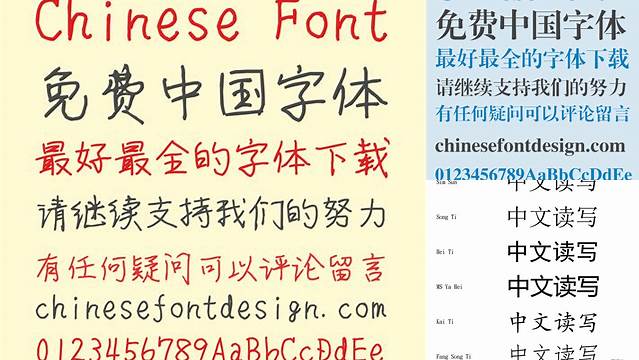
Chinese Fonts On Windows 11: A Complete Guide
Hey guys! Ever wondered how to get those beautiful Chinese characters displaying correctly on your Windows 11? Or maybe you're diving into learning Mandarin and need the right fonts to practice? Well, you've come to the right place! This guide is all about navigating the world of Chinese supplemental fonts on Windows 11. We'll cover everything from installation to troubleshooting, making sure your experience with Chinese text is smooth and enjoyable. Let's get started!
1. Understanding Chinese Font Support in Windows 11
So, first things first, let's talk about how Windows 11 handles Chinese fonts. Windows 11 actually comes with built-in support for a variety of languages, including Chinese. This means that a basic set of Chinese fonts is already included in your system. However, these default fonts might not always be enough, especially if you're working with specific styles or need a broader range of characters. This is where supplemental fonts come in. Think of it like this: the default fonts are like your everyday wardrobe, while supplemental fonts are those special outfits you pull out for specific occasions. For example, you might need a particular font for a calligraphy project or a different one for reading historical texts. Chinese supplemental fonts enhance your ability to interact with Chinese content, ensuring readability and aesthetic appeal. Windows 11's robust support for international languages makes it a great platform for anyone working with multilingual content. Understanding this foundation is key to ensuring your system can properly display Chinese characters, whether you're browsing websites, reading documents, or creating your own content. Knowing the capabilities of your operating system allows you to better manage your font options and optimize your user experience when dealing with Chinese text.
4. Recommended Chinese Fonts for Windows 11
Alright, let's talk about some specific Chinese fonts that work really well on Windows 11. If you're looking for a classic and elegant option, SimSun is a great choice. It's a widely used font that's known for its readability, especially in smaller sizes. Another popular option is Microsoft YaHei, which is a modern sans-serif font that looks clean and crisp on screen. For a more traditional feel, you might want to check out SimHei, which is a bold and impactful font often used in headlines and titles. If you're working on documents that require Traditional Chinese characters, MingLiU and PMingLiU are excellent choices. These fonts are designed specifically for Traditional Chinese and offer great clarity. When choosing a font, consider the purpose and context of your project. A font that works well for a formal document might not be the best choice for a casual blog post. Experimenting with different fonts is a great way to find the perfect match for your needs. Remember, the right font can significantly enhance the readability and aesthetic appeal of your text. Think about the overall tone and style you want to convey, and choose a font that aligns with that vision. The font you select plays a crucial role in how your content is perceived.
7. Troubleshooting Font Display Issues
Sometimes, even with the right fonts installed, you might run into issues with font display. Characters might look garbled, or certain fonts might not show up at all. Don't panic! There are a few things you can try to troubleshoot these problems. First, make sure you've restarted your application or even your computer after installing new fonts. This can often resolve minor glitches. If that doesn't work, try clearing your font cache. Windows stores a cache of font information to speed up performance, but sometimes this cache can become corrupted. You can usually clear the font cache by deleting the contents of the %WinDir%\System32\FNTCACHE.DAT file (you might need administrator privileges to do this). Another common issue is font conflicts. If you have multiple versions of the same font installed, they can sometimes interfere with each other. Try uninstalling any duplicate fonts to see if that fixes the problem. If you're still having trouble, check the font settings in your application. Some applications allow you to specify which fonts to use for different types of text. Ensuring that the correct Chinese font is selected can resolve display issues. Troubleshooting font problems can sometimes feel like detective work, but by systematically trying different solutions, you can usually get things working smoothly. Remember to document the steps you've taken so you can refer back to them if the issue recurs.
8. Updating Your Graphics Drivers
Okay, this might seem a little out there, but sometimes outdated graphics drivers can actually cause font display issues. Graphics drivers are the software that allows your computer to communicate with your graphics card, and they play a role in rendering text on your screen. If your drivers are old or corrupted, they might not be displaying fonts correctly. Updating your graphics drivers is usually a pretty straightforward process. You can either download the latest drivers from the manufacturer's website (Nvidia, AMD, or Intel) or use the Windows Device Manager. To access Device Manager, right-click on the Start button and select "Device Manager." Then, expand the "Display adapters" section, right-click on your graphics card, and select "Update driver." Windows will then search for and install the latest drivers. Keeping your graphics drivers up to date is not only important for font display but also for overall system performance and stability. It's a good practice to check for driver updates regularly, especially if you're experiencing graphical glitches or other display-related issues. Don't underestimate the impact of your graphics drivers on the visual aspects of your computing experience. Outdated drivers can lead to a variety of problems, including font rendering issues, so keeping them current is a smart move.
9. Adjusting ClearType Settings
Let's talk about making those Chinese fonts look extra crisp and clear on your screen. Windows has a feature called ClearType that helps smooth out the edges of fonts, making them easier to read. Sometimes, the default ClearType settings might not be optimal for Chinese characters, so it's worth tweaking them. To adjust ClearType settings, just search for "ClearType" in the Windows search bar and select "Adjust ClearType text." This will launch a wizard that walks you through the process of optimizing ClearType for your display. The wizard will show you a series of text samples and ask you to choose the one that looks best to you. This helps Windows fine-tune the ClearType settings to match your monitor and your personal preferences. Adjusting ClearType can make a significant difference in the readability of fonts, especially on LCD screens. It's a simple adjustment that can have a big impact on your viewing experience. Experimenting with different ClearType settings can help you find the perfect balance between sharpness and smoothness for your fonts. Remember, ClearType is designed to enhance the appearance of text, so taking the time to configure it properly is well worth the effort.
10. Using Font Management Software
If you're working with a large collection of Chinese fonts, things can get a little messy. That's where font management software comes in handy. These tools help you organize, activate, and deactivate fonts, making it easier to find the right font for your project. There are several font management programs available, both free and paid. Some popular options include FontBase, NexusFont, and FontExplorer X Pro. These programs allow you to create font sets, preview fonts, and even identify and resolve font conflicts. Using font management software can save you a lot of time and frustration, especially if you're a designer or someone who works with fonts regularly. It's like having a personal librarian for your font collection. Font management software not only helps you stay organized but also improves system performance by preventing unnecessary fonts from being loaded. By only activating the fonts you need, you can free up system resources and make your computer run more efficiently. Investing in a good font management tool can be a game-changer for anyone who takes typography seriously.
11. Chinese Font Licensing: What You Need to Know
Okay, let's talk about something that's not super exciting but really important: Chinese font licensing. Just like any other creative work, fonts are protected by copyright, and it's crucial to understand the licensing terms before you use them. Different fonts have different licenses, and these licenses dictate how you can use the font. Some fonts are free for personal and commercial use, while others might only be free for personal use or require a license fee for commercial projects. It's essential to read the license agreement carefully before using a font in a project that you plan to distribute or sell. Using a font without the proper license can lead to legal trouble, so it's not something to take lightly. When downloading fonts from reputable sources, the licensing information is usually clearly stated. If you're unsure about the licensing terms, it's always best to err on the side of caution and contact the font designer or foundry for clarification. Understanding font licensing is a fundamental aspect of responsible design and creative practice. Respecting the rights of font creators ensures the continued availability of high-quality fonts for everyone. Remember, ignorance of the law is no excuse, so take the time to educate yourself about font licensing.
12. Understanding Simplified vs. Traditional Chinese Fonts
When dealing with Chinese fonts, it's important to understand the difference between Simplified and Traditional Chinese characters. Simplified Chinese is the standard script used in mainland China, while Traditional Chinese is used in Hong Kong, Taiwan, and Macau. The main difference lies in the complexity of the characters. Simplified characters have been streamlined and have fewer strokes than their Traditional counterparts. This means that a font designed for Simplified Chinese might not display Traditional characters correctly, and vice versa. When choosing a font, it's crucial to select one that matches the script you're working with. If you're writing for a mainland Chinese audience, you'll want to use a Simplified Chinese font. If you're writing for a Taiwanese audience, you'll need a Traditional Chinese font. Some fonts support both Simplified and Traditional characters, but it's always best to double-check to ensure compatibility. Using the correct script not only ensures readability but also demonstrates respect for the cultural nuances of the language. Understanding the nuances between Simplified and Traditional Chinese is essential for effective communication. Paying attention to these details can significantly enhance the clarity and impact of your message.
13. Using Chinese Fonts in Microsoft Office
Alright, let's talk about using those Chinese fonts in Microsoft Office applications like Word, Excel, and PowerPoint. Getting your fonts to display correctly in Office is usually pretty straightforward, but there are a few things to keep in mind. First, make sure you've installed the Chinese fonts on your system, as we discussed earlier. Then, open your Office application and select the Chinese font from the font dropdown menu. If you don't see the font you're looking for, try restarting the application. Sometimes, Office needs a little nudge to recognize newly installed fonts. When typing in Chinese, make sure you've enabled the Chinese input method, as we covered earlier. You can switch between input methods using the language bar in the taskbar. If you're working on a document that contains both English and Chinese text, it's a good idea to set the language for each section of text. This ensures that the correct fonts and formatting are applied. You can do this by selecting the text and then going to the "Review" tab and clicking "Language" > "Set Proofing Language." Using Chinese fonts in Microsoft Office allows you to create professional-looking documents, presentations, and spreadsheets in Chinese. Proper font selection and language settings are key to ensuring readability and visual appeal. Mastering these techniques will enable you to communicate effectively in a multilingual environment.
14. Using Chinese Fonts in Adobe Creative Suite
If you're a creative professional using Adobe Creative Suite applications like Photoshop, Illustrator, or InDesign, you'll definitely want to know how to work with Chinese fonts. Adobe applications generally have excellent font support, but there are a few things to keep in mind to ensure everything displays correctly. First, as always, make sure you've installed the Chinese fonts on your system. Then, in your Adobe application, select the text tool and choose your Chinese font from the font menu. If you're not seeing the font, try restarting the application or clearing the font cache. Adobe applications sometimes cache font information, and clearing the cache can resolve display issues. When working with Chinese text in Adobe applications, it's essential to use the correct text engine. Adobe applications have different text engines for different languages, and you'll want to make sure you're using the one that supports Chinese. You can usually find this setting in the application's preferences or character panel. Using the correct text engine ensures that the characters are rendered correctly and that features like kerning and ligatures work as expected. Adobe Creative Suite provides powerful tools for working with typography, and mastering these tools is essential for creating visually stunning designs in Chinese. Proper font selection, text engine settings, and font management practices are key to achieving professional results. With the right knowledge and techniques, you can create beautiful and impactful designs in any language.
15. Creating Chinese Calligraphy with Digital Fonts
Okay, let's get creative! Have you ever thought about using Chinese fonts to create digital calligraphy? It's a fantastic way to blend traditional art with modern technology. While nothing quite compares to the feel of a brush on paper, digital calligraphy offers its own unique advantages. You can experiment with different fonts, colors, and effects without the mess and expense of traditional materials. To create digital calligraphy, you'll want to start by choosing a font that emulates traditional Chinese calligraphy styles. There are many fonts available that mimic the look of different calligraphy scripts, such as Kaishu (楷书), Xingshu (行书), and Caoshu (草书). Once you've chosen your font, you can use a graphics tablet and stylus to create your strokes. A graphics tablet allows you to control the thickness and pressure of your strokes, giving you a more natural and expressive feel. You can also use software like Photoshop or Procreate to add textures, gradients, and other effects to your calligraphy. Digital calligraphy is a great way to explore the beauty of Chinese writing in a new and innovative way. It allows you to combine traditional techniques with digital tools, opening up a world of creative possibilities. Whether you're a seasoned calligrapher or a beginner, digital calligraphy offers a fun and accessible way to express yourself.
16. Using Chinese Fonts on Websites
If you're building a website that includes Chinese content, choosing the right Chinese fonts is crucial. You want your text to be readable and visually appealing to your audience. However, there are some technical considerations to keep in mind when using fonts on the web. Not all fonts are web-safe, meaning they might not be available on every user's computer. If a user doesn't have the font installed, their browser will substitute a different font, which might not look the way you intended. To avoid this, it's best to use web fonts. Web fonts are fonts that are hosted online and can be downloaded by the user's browser when they visit your website. There are several services that offer web fonts, such as Google Fonts and Adobe Fonts. These services provide code snippets that you can add to your website to load the fonts. When choosing web fonts, consider the file size. Large font files can slow down your website's loading time, which can negatively impact the user experience. It's best to choose fonts that are optimized for the web and have a reasonable file size. Using Chinese fonts on websites allows you to create engaging and accessible content for Chinese-speaking audiences. By using web fonts and optimizing your font choices, you can ensure that your website looks great and loads quickly for all users. The right font can significantly enhance the readability and visual appeal of your website, creating a more positive user experience.
17. Chinese Font Pairing: Combining Fonts Effectively
Just like in any design project, Chinese font pairing is an art! Choosing the right combination of fonts can elevate your design, while a poor pairing can make your text look disjointed and unprofessional. When pairing Chinese fonts, it's important to consider the overall tone and style you want to convey. Do you want a modern and minimalist look, or a more traditional and elegant feel? A good rule of thumb is to pair a serif font with a sans-serif font. Serif fonts have small decorative strokes at the ends of the letters, while sans-serif fonts do not. This contrast can create visual interest and make your text more readable. For example, you might pair a classic serif font like SimSun with a modern sans-serif font like Microsoft YaHei. Another approach is to use different weights or styles of the same font family. For example, you could use a bold font for headings and a regular font for body text. This creates a cohesive look while still providing visual hierarchy. When pairing Chinese fonts with Latin fonts, it's important to choose fonts that complement each other in terms of weight, style, and x-height (the height of the lowercase letters). A harmonious font pairing can enhance the readability and visual appeal of your design, creating a more polished and professional look. Experimenting with different font combinations is a great way to develop your eye for typography and find pairings that work well for your specific project.
18. Understanding Unicode and Chinese Fonts
Okay, let's dive into a bit of technical stuff: Unicode. Understanding Unicode is crucial when working with Chinese fonts because it's the standard that allows computers to represent characters from different languages. Unicode assigns a unique number to every character, regardless of the language or platform. This means that a Chinese character encoded in Unicode will display correctly on any system that supports Unicode. Without Unicode, you might see garbled characters or boxes instead of Chinese text. Most modern fonts, including Chinese fonts, are Unicode-compliant. This means they contain glyphs (the visual representation of a character) for a wide range of Unicode characters. However, not all fonts contain glyphs for every character. Some fonts might only support a subset of Chinese characters, while others might support the full range. When choosing a font, it's important to consider the Unicode coverage. If you're working with a wide variety of Chinese texts, you'll want to choose a font that has broad Unicode support. Understanding Unicode is essential for ensuring that your Chinese text displays correctly across different systems and platforms. It's the foundation for multilingual computing and allows us to communicate effectively in a globalized world. By using Unicode-compliant fonts and systems, we can ensure that our messages are accurately conveyed, regardless of the language or script.
19. Common Mistakes to Avoid When Using Chinese Fonts
Alright, let's talk about some common pitfalls to avoid when working with Chinese fonts. Knowing these mistakes can save you a lot of headaches and ensure that your text looks its best. One common mistake is using the wrong font for the script. As we discussed earlier, Simplified Chinese fonts are designed for Simplified Chinese characters, and Traditional Chinese fonts are designed for Traditional Chinese characters. Using the wrong font can result in missing characters or incorrect glyphs. Another mistake is using too many fonts in a single project. Just like with Latin fonts, using too many fonts can create a cluttered and unprofessional look. It's best to stick to a limited number of fonts and use them consistently throughout your design. Another common issue is not paying attention to font licensing. Using a font without the proper license can lead to legal problems, so it's important to always check the licensing terms before using a font in a commercial project. Ignoring line spacing and kerning can also make your text look less polished. Proper line spacing (leading) and kerning (the space between letters) can significantly improve the readability of your text. By avoiding these common mistakes, you can ensure that your Chinese text looks professional and communicates effectively. Paying attention to the details of typography can make a big difference in the overall impact of your design. Learning from the mistakes of others can help you avoid common pitfalls and create more polished and professional work.
20. Optimizing Chinese Fonts for Readability
Readability is key when working with Chinese fonts. You want your text to be easy to read and understand, no matter the context. There are several factors that contribute to readability, including font size, line spacing, kerning, and color contrast. Font size is an obvious one. If the font is too small, it will be difficult to read, especially on screens. Line spacing (leading) is the vertical space between lines of text. Too little line spacing can make the text look cramped, while too much can make it look disjointed. Kerning, as we mentioned earlier, is the space between letters. Adjusting the kerning can improve the visual balance of the text and make it more readable. Color contrast is the difference in brightness between the text and the background. High contrast, such as black text on a white background, is generally the most readable. However, you can also use other color combinations as long as there is sufficient contrast. Choosing the right font also plays a crucial role in readability. Some fonts are simply more readable than others, especially in certain contexts. Experimenting with different fonts and settings is the best way to find what works best for your project. Optimizing Chinese fonts for readability ensures that your message is communicated effectively and that your audience has a positive reading experience. Attention to detail in typography can make a significant difference in the impact and effectiveness of your communication.
21. Exploring Chinese Calligraphy Styles Through Fonts
Let's delve deeper into the fascinating world of Chinese calligraphy styles and how fonts can help you explore them. Chinese calligraphy is an ancient art form with a rich history and diverse range of styles. Each style has its own unique characteristics and aesthetic appeal. Fonts can be a great way to experience these styles digitally, even if you don't have the skills or materials for traditional calligraphy. Some of the most common calligraphy styles include Kaishu (楷书), Xingshu (行书), Caoshu (草书), and Lishu (隶书). Kaishu, also known as the regular script, is the most formal and structured style. It's characterized by its precise strokes and clear structure. Xingshu, or the semi-cursive script, is a more fluid and expressive style than Kaishu. It's often used for personal letters and informal writing. Caoshu, or the cursive script, is the most 자유로운 and abstract style. It's characterized by its flowing strokes and abbreviated forms. Lishu, or the clerical script, is an older style that was commonly used in official documents. It's characterized by its flat, horizontal strokes and distinctive flared endings. By using fonts that emulate these different calligraphy styles, you can experiment with different aesthetics and learn more about the art of Chinese writing. Digital calligraphy offers a fun and accessible way to explore the beauty and history of Chinese calligraphy. It allows you to appreciate the artistry of the different styles and create your own unique interpretations.
22. Resources for Learning More About Chinese Typography
If you're eager to learn more about Chinese typography, you're in luck! There are tons of resources available, both online and offline. From websites and blogs to books and courses, there's something for everyone. Online resources are a great place to start. Websites like Typographica and I Love Typography often feature articles and discussions about typography in different languages, including Chinese. Blogs dedicated to Chinese design and culture can also provide valuable insights. There are also many online courses and tutorials available on platforms like Skillshare and Udemy. These courses can teach you the fundamentals of Chinese typography, as well as more advanced techniques. For those who prefer learning from books, there are several excellent books on typography and calligraphy that include sections on Chinese typography. The Visual Display of Quantitative Information by Edward Tufte is a classic that covers a wide range of design principles, including typography. Joining a typography community or forum can also be a great way to learn from others and ask questions. There are many online communities dedicated to typography, where you can connect with designers and enthusiasts from around the world. With so many resources available, there's no limit to what you can learn about Chinese typography. Whether you're a beginner or an experienced designer, there's always something new to discover. Embracing a lifelong learning approach is essential for staying current in the ever-evolving field of typography.
23. The Future of Chinese Fonts on Windows
So, what does the future hold for Chinese fonts on Windows? It's an exciting time for typography, with new technologies and trends constantly emerging. We can expect to see even better support for Chinese fonts in Windows in the years to come. Microsoft is committed to improving its language support and has been actively working on enhancing the font rendering engine in Windows. This means that Chinese fonts will likely display even more accurately and smoothly in the future. We can also expect to see a wider variety of Chinese fonts available, both free and commercial. The demand for high-quality Chinese fonts is growing, and font designers are responding by creating new and innovative typefaces. Cloud-based font services are also becoming increasingly popular. These services allow you to access a vast library of fonts on demand, without having to install them on your system. This can be particularly useful for web design, where you want to ensure that your fonts display correctly across different browsers and devices. The rise of variable fonts is another exciting development. Variable fonts allow designers to create a single font file that can be customized in various ways, such as weight, width, and slant. This can significantly reduce file sizes and improve website performance. The future of Chinese fonts on Windows is bright, with ongoing advancements in technology and a growing appreciation for typography. Staying informed about the latest trends and developments will help you make the most of Chinese fonts in your projects.
24. Creating Custom Chinese Fonts
For the truly adventurous, let's talk about creating your own custom Chinese fonts! This is a challenging but incredibly rewarding endeavor that allows you to express your unique creative vision. Creating a font is a complex process that requires a deep understanding of typography and design principles. You'll need to consider factors like character shapes, spacing, and overall consistency. There are several software programs available for creating fonts, such as FontLab Studio, Glyphs, and RoboFont. These programs provide tools for drawing characters, adjusting spacing, and generating font files. Creating a Chinese font is particularly challenging because of the large number of characters involved. A typical Chinese font contains thousands of characters, compared to the 26 letters in the Latin alphabet. This means that creating a complete Chinese font is a significant undertaking that can take months or even years. However, you don't necessarily need to create a complete font. You can start by designing a subset of characters or focusing on a specific style or application. Creating a custom Chinese font is a great way to push your creative boundaries and contribute to the world of typography. It allows you to express your unique artistic vision and create fonts that perfectly match your specific needs. While it's a challenging process, the rewards of seeing your own font in use are well worth the effort.
25. The Importance of Typography in Chinese Culture
To truly appreciate Chinese fonts, it's essential to understand the importance of typography in Chinese culture. Writing and calligraphy have a long and revered history in China, and typography plays a significant role in communication and artistic expression. Calligraphy is considered one of the highest forms of art in China, and the beauty and elegance of Chinese characters are deeply admired. The way a character is written can convey meaning beyond the literal definition of the word. Different calligraphy styles express different emotions and moods, and skilled calligraphers can use their brushstrokes to create powerful visual statements. Typography in China is not just about functionality; it's also about aesthetics and cultural heritage. The choice of font can influence the perception of a message and evoke specific cultural associations. For example, a traditional serif font might be used for formal documents or classical literature, while a modern sans-serif font might be used for contemporary designs. Understanding the cultural significance of typography can help you make more informed font choices and create designs that resonate with your audience. It also provides a deeper appreciation for the artistry and craftsmanship involved in creating Chinese fonts. Typography is a powerful tool for communication, and in Chinese culture, it's also a reflection of history, art, and tradition.
26. Chinese Font Design Trends
Let's take a look at some of the current Chinese font design trends. Just like in any field of design, typography is constantly evolving, and new trends emerge all the time. One notable trend is the blending of traditional and modern styles. Designers are creating fonts that combine the elegance of traditional calligraphy with the clean lines of contemporary typography. This creates fonts that are both visually appealing and culturally relevant. Another trend is the use of bold and impactful fonts. These fonts are often used for headlines and titles to grab attention and make a statement. The use of variable fonts is also gaining popularity in Chinese typography. As we discussed earlier, variable fonts offer a high degree of flexibility and customization, allowing designers to create a wide range of styles from a single font file. This is particularly useful for web design, where font file sizes can impact website performance. Designers are also experimenting with different textures and effects in Chinese fonts. This includes adding subtle imperfections or brushstroke effects to create a more hand-crafted feel. Staying informed about current design trends can help you create fonts that are fresh, innovative, and visually engaging. It's important to remember that trends are constantly evolving, so it's essential to stay open to new ideas and experiment with different styles.
27. Resources for Finding Free Chinese Fonts
Need some Chinese fonts but don't want to break the bank? There are plenty of resources for finding free Chinese fonts online! However, it's important to be cautious when downloading fonts from the internet, as some sources may not be reputable. Always make sure you're downloading from a trusted website and that you've checked the font license before using it. Google Fonts is a great place to start. They offer a selection of free and open-source Chinese fonts that are optimized for web use. Font Library is another excellent resource. It's a website that curates a collection of free and open-source fonts from various sources. You can filter your search by language and style to find the perfect font for your project. DaFont is a popular website that offers a huge selection of free fonts, including many Chinese fonts. However, it's important to note that the quality of fonts on DaFont can vary, so it's always a good idea to preview the font and read reviews before downloading. When using free fonts, it's essential to check the license agreement. Some fonts are free for personal use only, while others are free for commercial use as well. Make sure you understand the terms of the license before using the font in a project that you plan to distribute or sell. Finding free Chinese fonts can be a great way to expand your font library without spending a lot of money. Just remember to be cautious, download from reputable sources, and always check the font license.
28. Using Chinese Fonts in Mobile Apps
If you're developing a mobile app that supports Chinese, choosing the right Chinese fonts is crucial. Mobile devices have limited screen space, so readability is especially important. You'll want to choose fonts that are clear, legible, and optimized for small screens. Font file size is also a consideration. Large font files can increase the size of your app, which can impact download times and storage space. It's best to choose fonts that are optimized for mobile use and have a reasonable file size. Many mobile app development platforms, such as iOS and Android, include built-in Chinese fonts. These fonts are designed to work well on mobile devices and are generally a good choice. You can also use custom fonts in your mobile app, but you'll need to make sure they're properly licensed and optimized for mobile use. When using custom fonts, it's a good idea to test them on different devices and screen sizes to ensure they display correctly. The language settings on the user's device can also affect font rendering. Make sure your app handles language settings correctly and displays the appropriate fonts for the user's chosen language. Using Chinese fonts in mobile apps requires careful consideration of readability, file size, and device compatibility. By choosing the right fonts and optimizing them for mobile use, you can create an app that is visually appealing and easy to use for Chinese-speaking users.
29. The Psychology of Chinese Fonts: Choosing the Right Tone
Just like in any language, Chinese fonts can evoke different emotions and convey different tones. The font you choose can have a significant impact on how your message is perceived. When selecting a font, consider the overall mood and style you want to create. A formal and elegant font might be appropriate for a high-end brand, while a playful and casual font might be better suited for a children's product. Traditional serif fonts often convey a sense of authority, tradition, and sophistication. They're a good choice for formal documents, classical literature, and brands that want to project a sense of history and heritage. Modern sans-serif fonts tend to be more clean, minimalist, and contemporary. They're often used for websites, mobile apps, and brands that want to project a modern and forward-thinking image. Calligraphy-style fonts can evoke a sense of artistry, elegance, and cultural authenticity. They're often used for invitations, greeting cards, and designs that celebrate Chinese culture. The color of your text can also affect the tone of your message. Red is a popular color in Chinese culture and is often associated with joy, prosperity, and good fortune. Black is often associated with seriousness and formality, while white can convey a sense of purity and simplicity. Understanding the psychology of fonts can help you make more informed font choices and create designs that resonate with your target audience. By carefully considering the tone and message you want to convey, you can use typography to create a powerful emotional connection with your audience.
30. Advanced Tips for Working with Chinese Fonts in Windows 11
Okay, let's wrap things up with some advanced tips for working with Chinese fonts in Windows 11. These tips can help you take your typography skills to the next level and create truly professional-looking designs. If you're working on a long document or website with a lot of Chinese text, consider using a style sheet. Style sheets allow you to define font styles and formatting rules that can be applied consistently throughout your project. This can save you a lot of time and effort and ensure that your text looks uniform. Use ligatures to improve the readability and visual appeal of your Chinese text. Ligatures are special characters that combine two or more letters into a single glyph. Chinese fonts often include ligatures for common character combinations, which can make the text flow more smoothly. Pay attention to the spacing between characters and lines. Proper kerning and leading can significantly improve the readability of your text. Most design software includes tools for adjusting kerning and leading. Experiment with different font sizes and weights to create visual hierarchy. Using different font sizes and weights can help you guide the reader's eye and highlight important information. Consider the overall layout and design of your project when choosing fonts. The font you choose should complement the other elements of your design and contribute to the overall aesthetic. By mastering these advanced tips, you can create Chinese typography that is both visually appealing and highly effective. Attention to detail and a deep understanding of typography principles are key to creating professional-quality designs. Remember, the best typography is often invisible – it enhances the message without calling attention to itself.